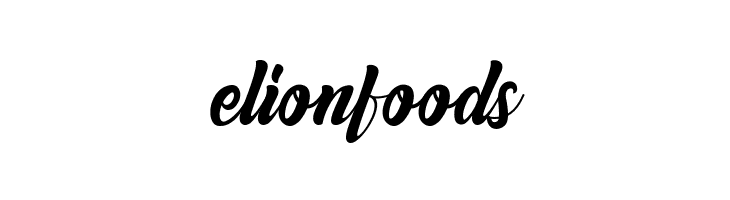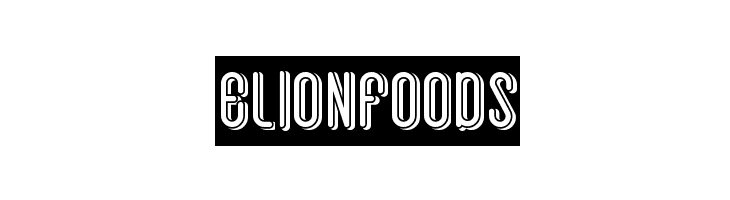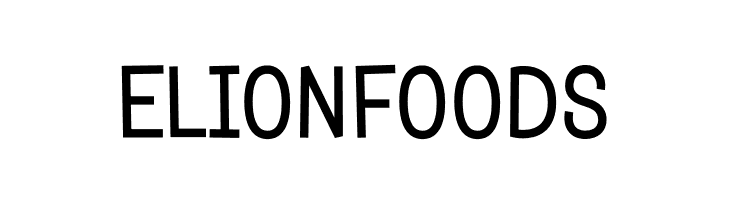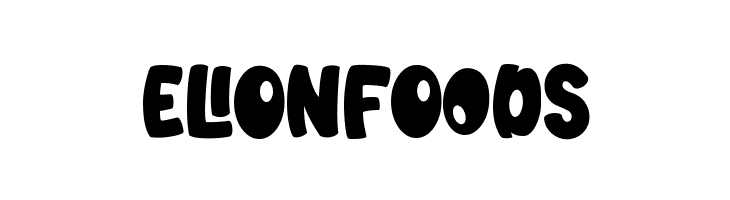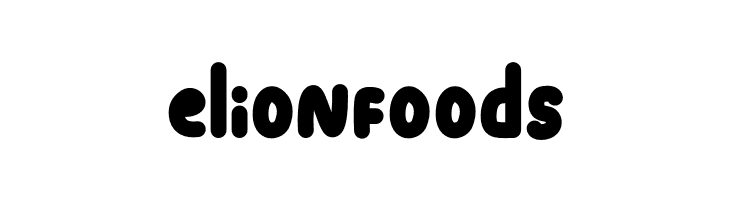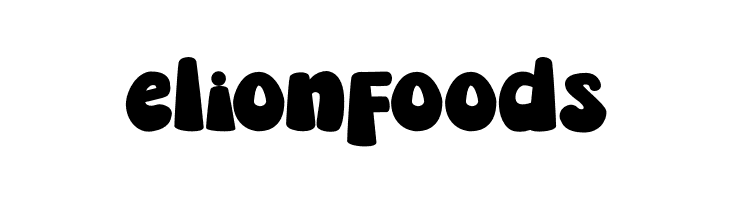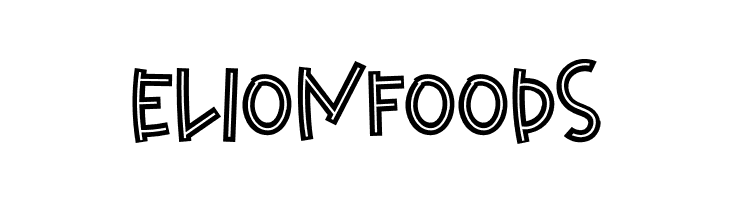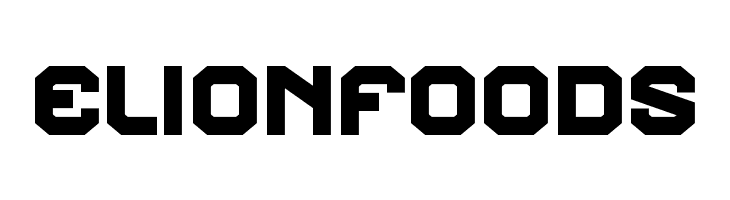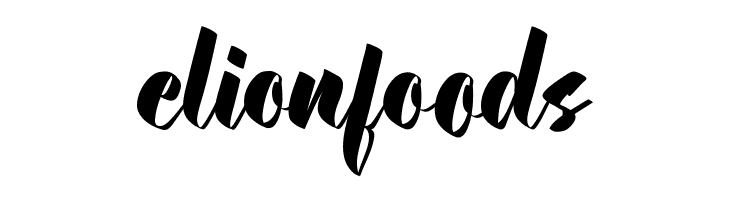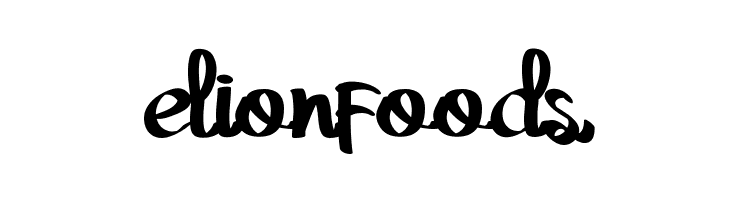
A playful, bold font with rounded, thick strokes and a hand-drawn feel.
A graceful and flowing script font with elegant, connected characters.
A modern, rounded sans-serif font with uniform strokes and balanced spacing.
A bold, rounded font with a playful and robust style.
A playful, bold handwritten font with smooth curves and a casual style.
A bold, modern sans-serif font with a strong visual impact.
A bold, distressed font with jagged, hand-drawn characters.
A bold, brush-stroke font with a dynamic and edgy appearance.
An elegant script font with intricate swashes and flowing, interconnected letters.
A bold, decorative font with organic, fluid shapes and dynamic energy.
A bold, expressive handwritten font with flowing, connected letterforms.
A dynamic, cursive font with fluid, interconnected letters and a handwritten feel.
A bold, distressed font with a gritty, vintage industrial style.
A bold, geometric font with angular lines and a modern aesthetic.
A modern, clean sans-serif font with bold, geometric uppercase and consistent lowercase letters.
A bold, graffiti-inspired font with sharp, angular lines and a dynamic, hand-drawn style.
A modern, clean sans-serif font with balanced proportions and versatile characters.
A bold, playful font with rounded, bubbly characters ideal for retro and whimsical designs.
A playful, bold outline font with rounded, bubbly characters.
A bold, playful font with a bubbly, glossy appearance.
A bold, playful font with a retro, extruded style and tight character spacing.
A bold, retro-inspired font with a playful, bubbly design.
A bold, playful display font with hand-drawn, retro-inspired shapes.
A bold, playful font with thick, rounded characters and a retro vibe.
A playful, balloon-like typeface with bold, rounded characters.
An elegant, flowing script font with decorative flourishes and high contrast.
A playful, hand-drawn font with bold, exaggerated curves and loops.
( Fonts by Emas Prasetyo - Personal-use only. For commercial use please contact owner. )
A modern, geometric font with a clean and minimalist design.
A bold slab serif font with a modern yet classic appeal.
A bold, retro font with playful, wavy contours and a psychedelic style.
A bold, expressive script font with dynamic, cursive strokes and high contrast.